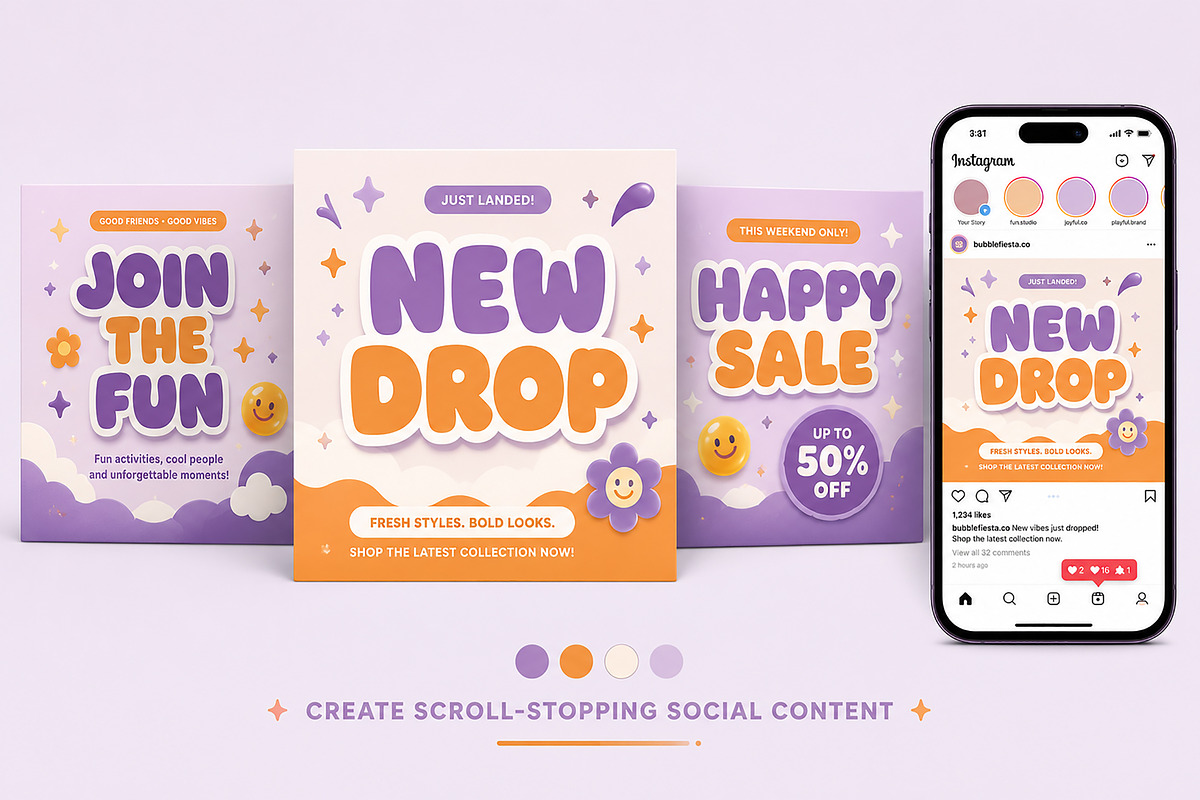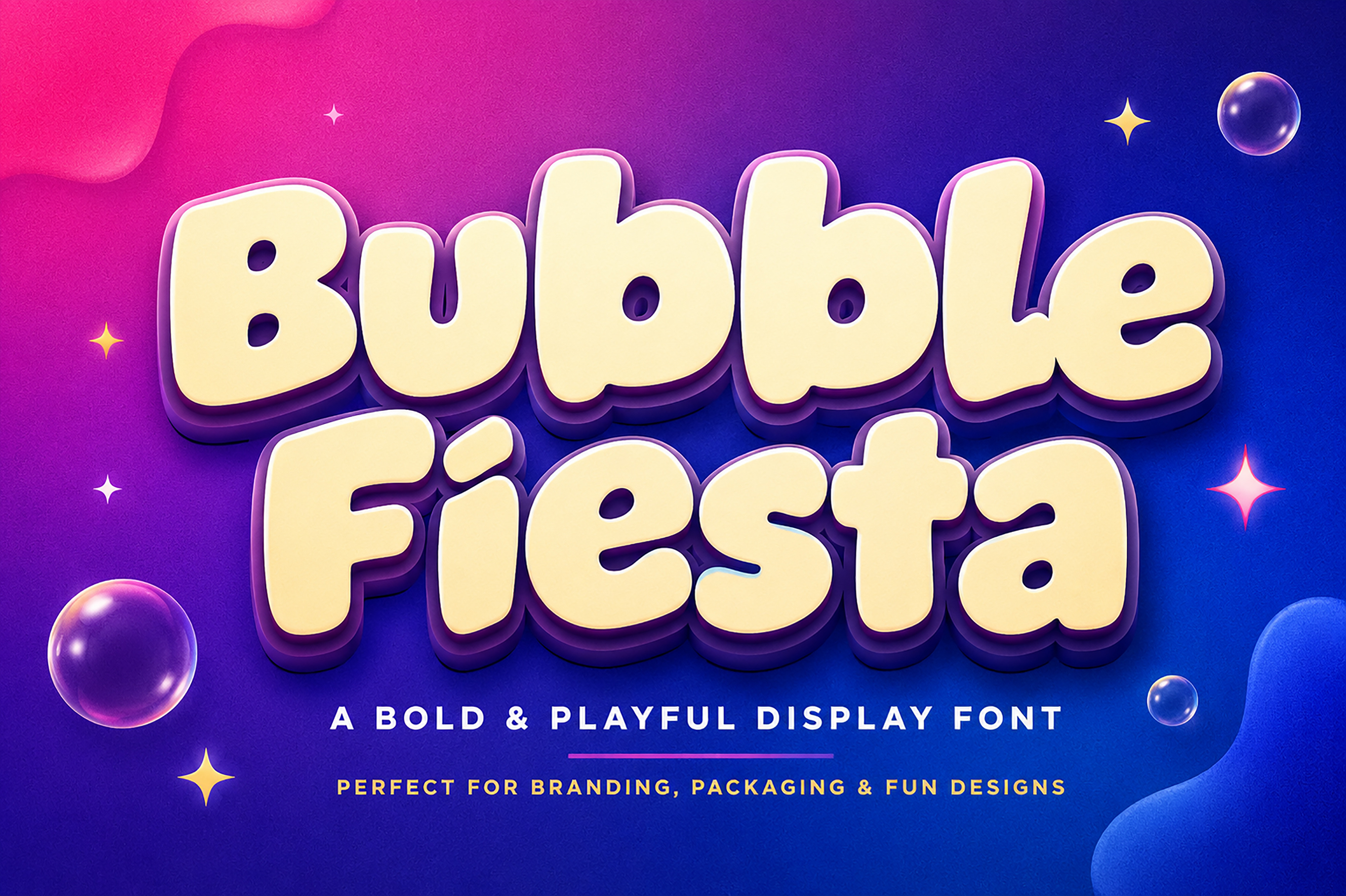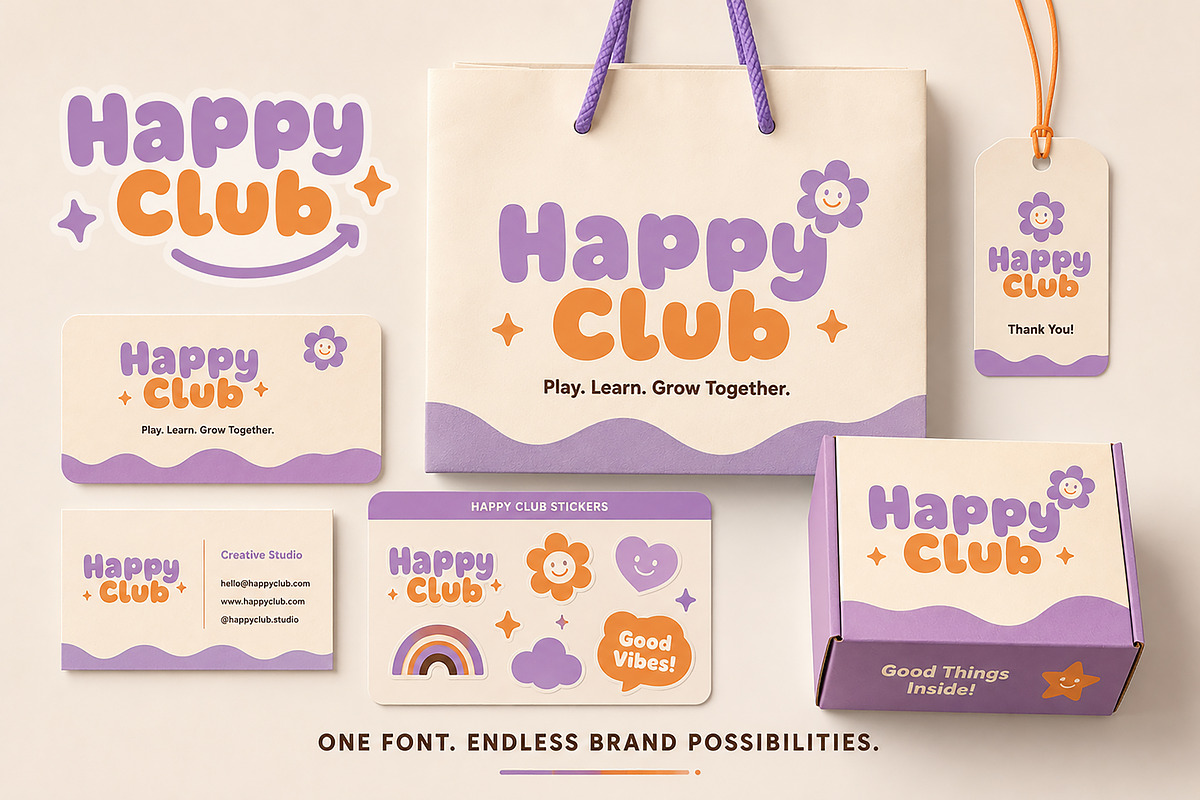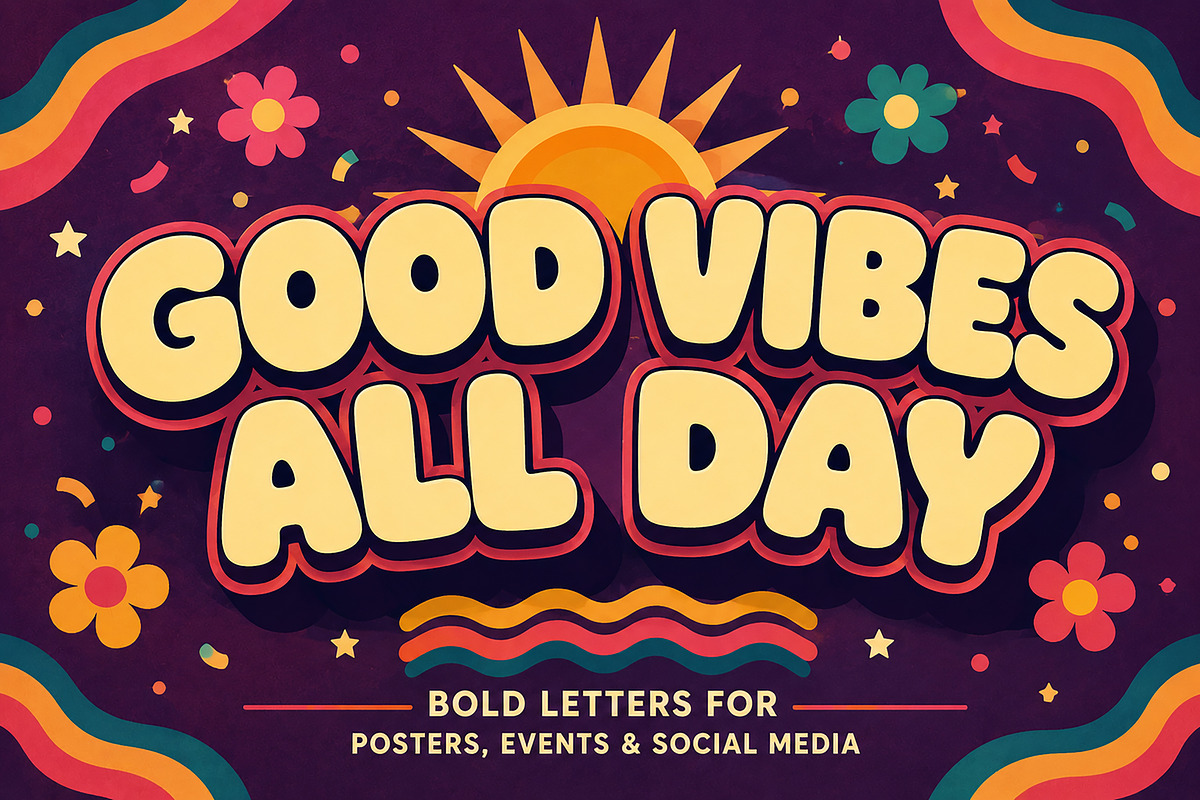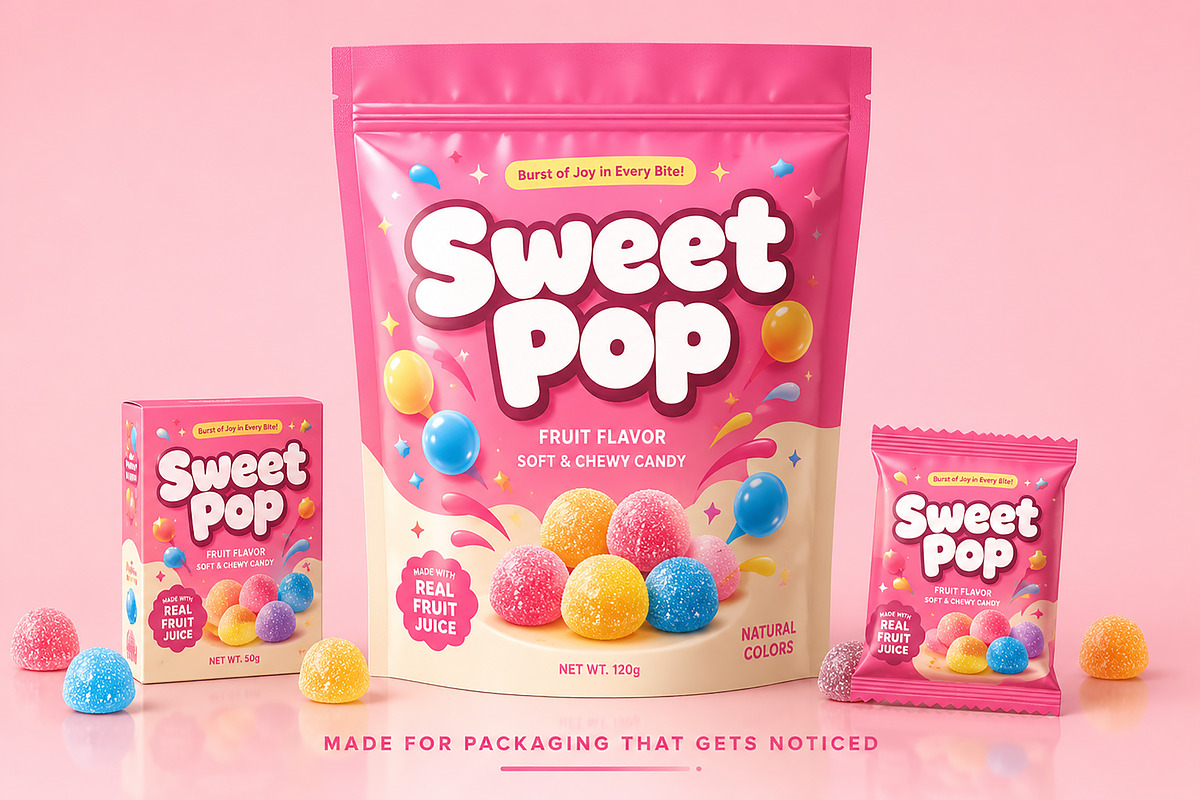
Bubble Fiesta – Bold Display Font
Bubble Fiesta – Bold Playful Display Font
Bring joy, energy, and personality to your creative projects with Bubble Fiesta, a bold display font featuring soft rounded shapes and a fun, eye-catching style. Designed to make every headline stand out, this font is perfect for playful branding, colorful packaging, social media graphics, posters, and children's products.
Bubble Fiesta combines a friendly personality with a clean, modern finish, making it versatile for both digital and print designs. Whether you're creating a candy brand, toy packaging, event poster, YouTube thumbnail, or eye-catching Instagram post, this font adds a cheerful and memorable touch.
Its chunky letterforms, smooth curves, and playful appearance make it an excellent choice for designers looking to create fun, approachable, and high-impact visuals.
Branding & Visual Identity
Candy & Snack Packaging
Bubble Tea & Dessert Shops
Children's Products
Toy Branding
Posters & Flyers
Event Promotions
Instagram Posts
YouTube Thumbnails
Stickers
T-Shirts
Greeting Cards
Magazine Covers
Creative Headlines
Website Banners
Advertising Design
Uppercase Letters
Lowercase Letters
Smooth Rounded Letterforms
Why You'll Love Bubble Fiesta
Bold and highly readable
Fun, friendly, and modern personality
Perfect for playful commercial branding
Great for packaging and product labels
Designed for eye-catching headlines
Ideal for both print and digital projects
Clean professional finish with a unique bubbly style